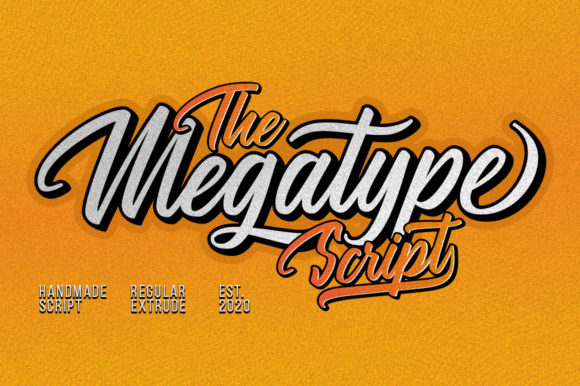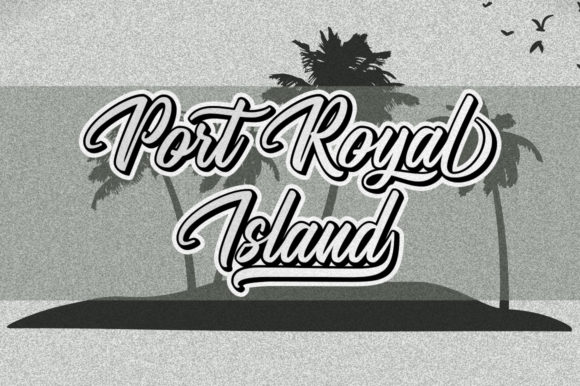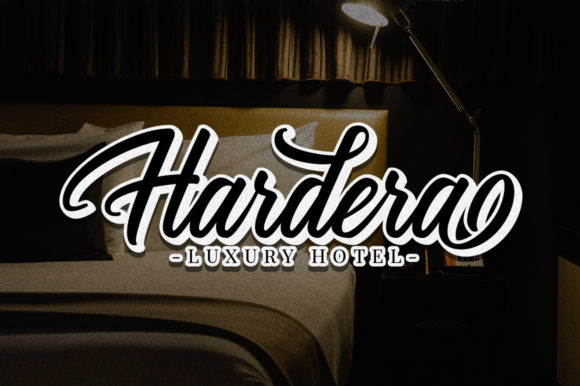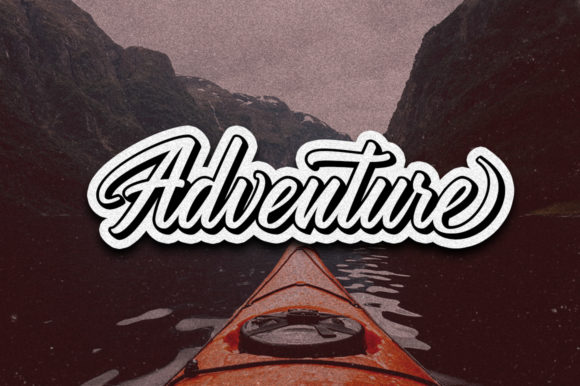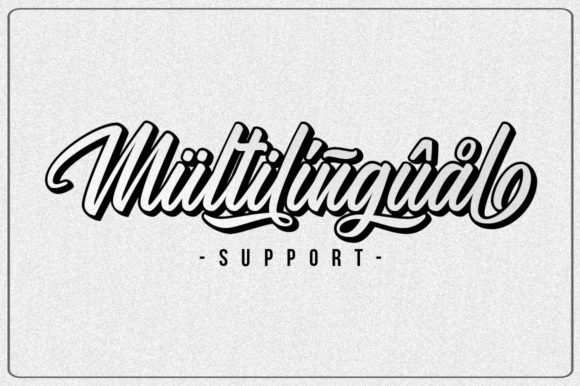
The Megatype Script Font
About The Megatype Script Font
The Megatype Script feels equally charming and elegant. It looks stunning on wedding invitations, thank you cards, quotes, greeting cards, logos, business cards and every other design which needs a handwritten touch.